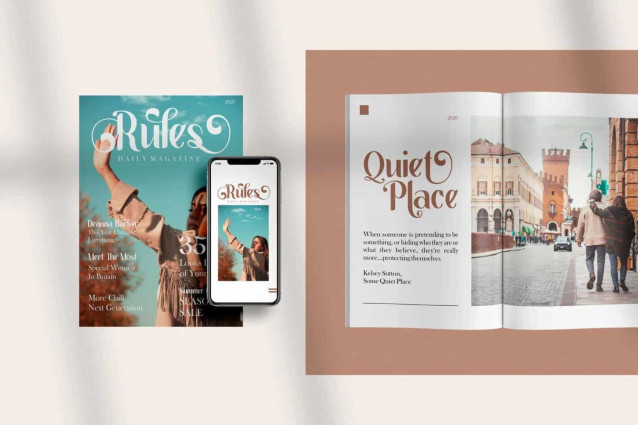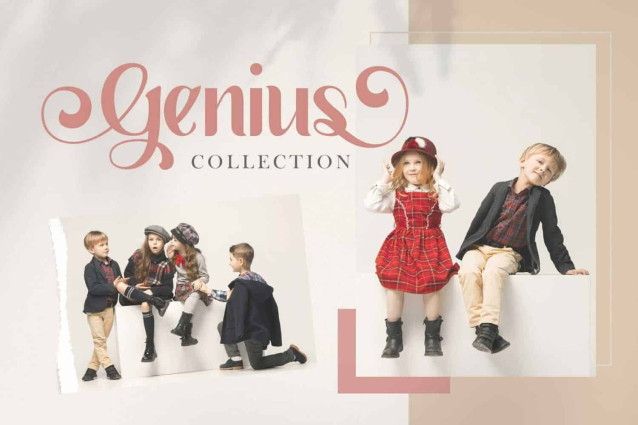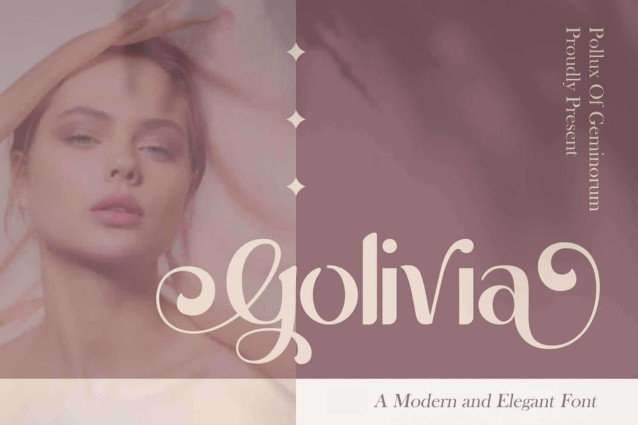
Golivia Font
Golivia Font, a modern and elegant sans serif font with multipurpose function that suitable for logo, wedding invitation, banner, social media, poster, TVC etc.